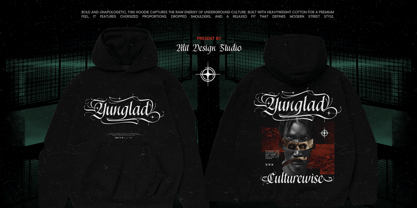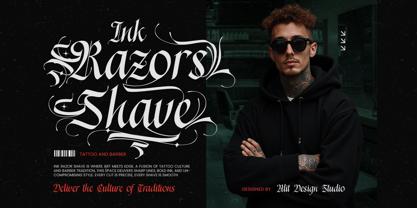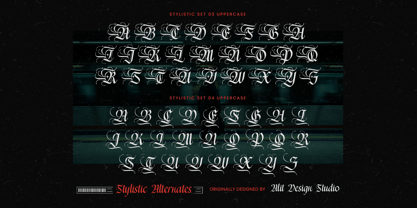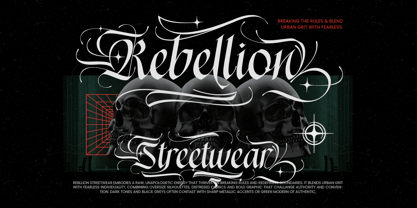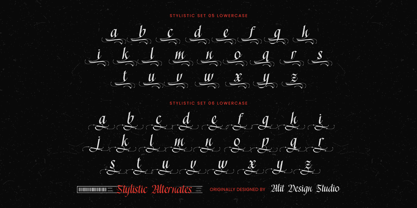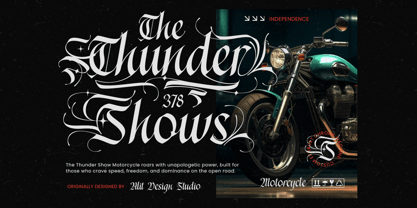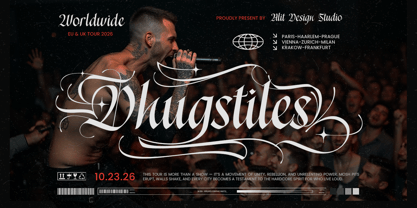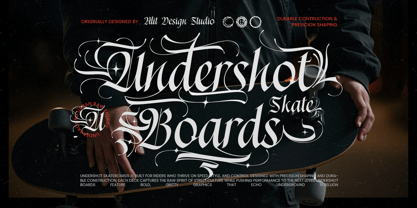
Daigersun
by Alit Design
The Daigersun Font Family was designed by Alit Suarnegara and published by Alit Design. Daigersun contains 1 styles.
Daigersun Typeface: Where Rebellion Meets Elegance Unleash a torrent of raw energy and refined elegance with Daigersun, a masterfully crafted typeface that tears up the rulebook. Born from the shadows of urban culture, Daigersun masterfully blends the unforgiving power of blackletter with the fluid, calligraphic grace of a modern script. This is not just a font; it's a statement. Daigersun embodies a beautiful contradiction: it's fierce yet sophisticated, gritty yet ornate. Each letter is designed with meticulous precision, featuring sharp, aggressive lines that flow into intricate, expressive swashes. This duality makes it the ultimate tool for designers who dare to be different and refuse to be ignored. With a massive arsenal of over 933 glyphs, including a treasure trove of stylistic alternates, ligatures, and multilingual support, Daigersun offers unparalleled creative freedom. Effortlessly switch between character sets to craft a look that is entirely your own—from bold and in-your-face to subtly stylish and complex. What's Included: A Full Set of Uppercase and Lowercase Characters Numbers & Punctuation Extensive Stylistic Alternates & Ligatures Complete Multilingual Support PUA Encoded for easy access to all glyphs Perfect For: Streetwear & Apparel: Create iconic designs for hoodies, t-shirts, and caps that capture the spirit of the streets. Tattoo Lettering: Design authentic, bold tattoo artwork with an unforgettable edge. Branding & Logos: Forge powerful, memorable logos for motorcycle clubs, skateboard brands, and music artists. Poster & Album Art: Make a high-impact statement on event posters, album covers, and social media graphics. Editorial Design: Add a touch of rebellion and dark elegance to magazine headers and layouts. Step away from the ordinary. Download Daigersun today and inject your designs with a dose of fearless authenticity.